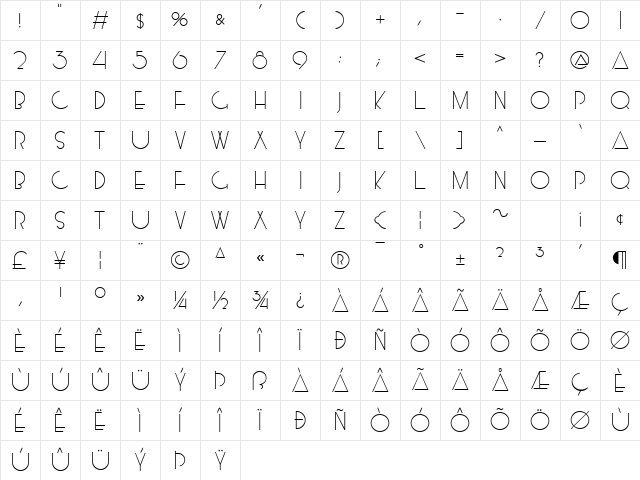
MossmanLight Regular Free Font
MossmanLight Regular
Design Context for MossmanLight
MossmanLight is a composed and adaptable typeface that performs quietly and consistently across a wide range of design contexts. Its slender proportions lend an understated elegance to any composition.